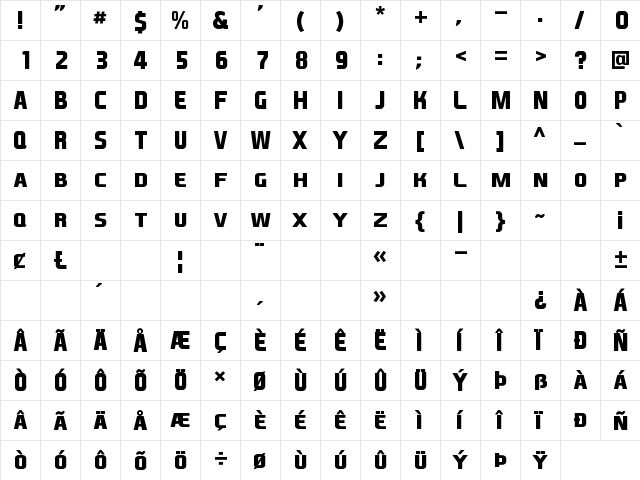
EA Sports Covers SC Bold
Design Context for EA Sports Covers SC Typeface
EA Sports Covers SC brings high-energy athletic personality to the page — its confident, muscular forms are built for impact. Its bold stroke weight gives it real presence on the page.
Built for sports team identities, athletic apparel, event posters, and high-energy promotional material.
Pro Tip: EA Sports Covers SC thrives on contrast — try it large, bold, and tight against a clean background for maximum visual impact.